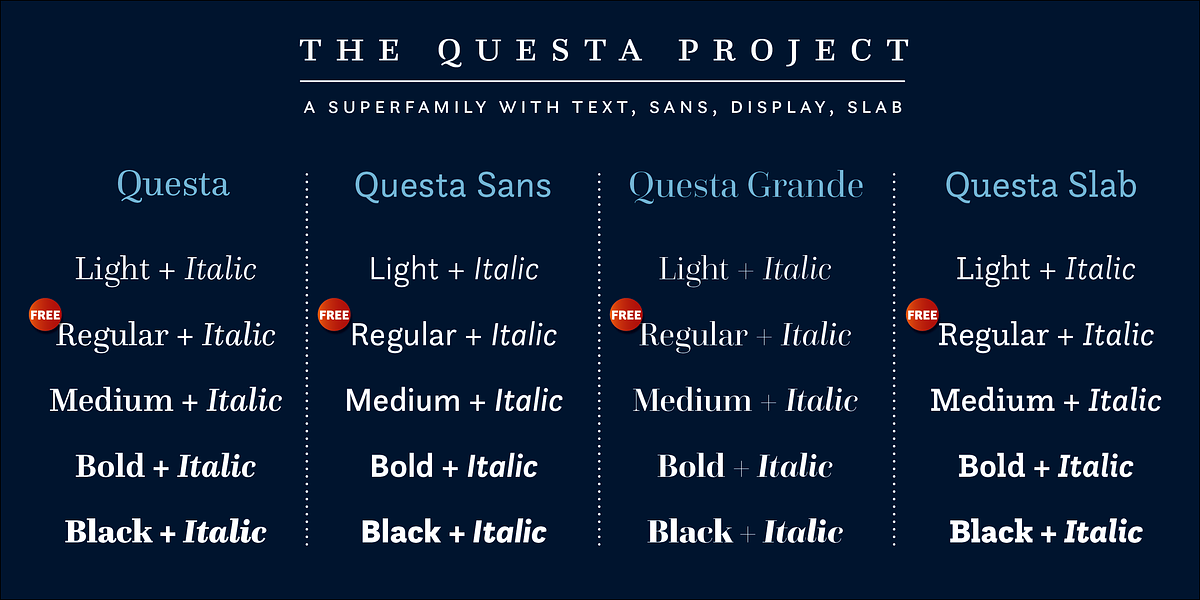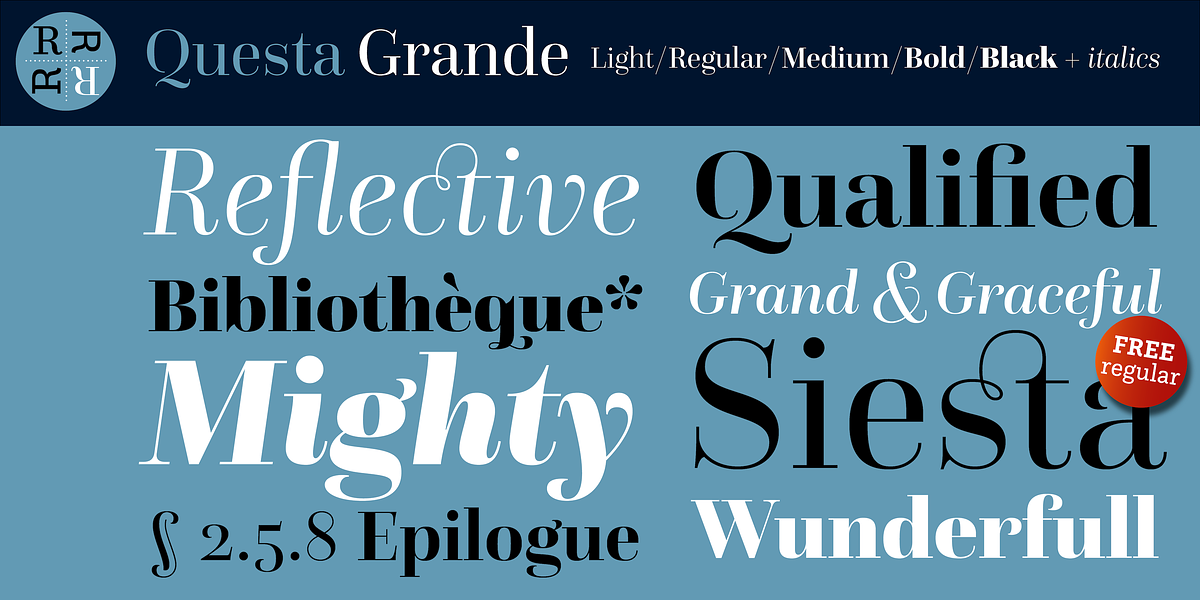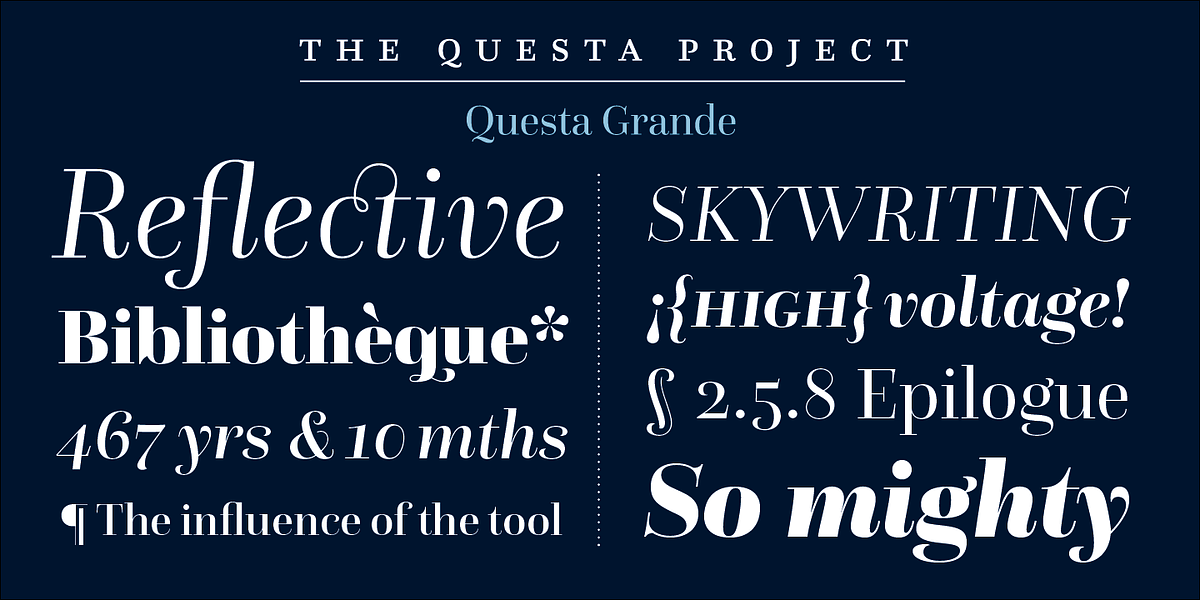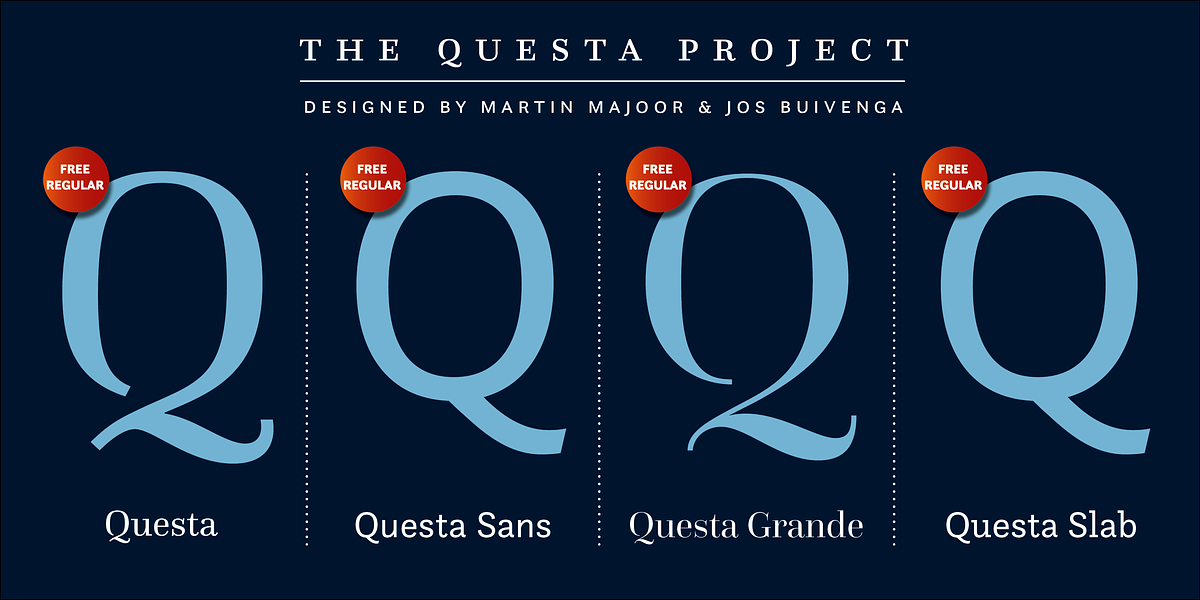
Questa Grande
Questa is a modern serif display font designed by Jos Buivenga and Martin Majoor as part of The Questa Project. The project also includes matching serif and sans-serif fonts. Questa's versatility comes from features like small caps, four figure sets, ligatures, and extensive language support.